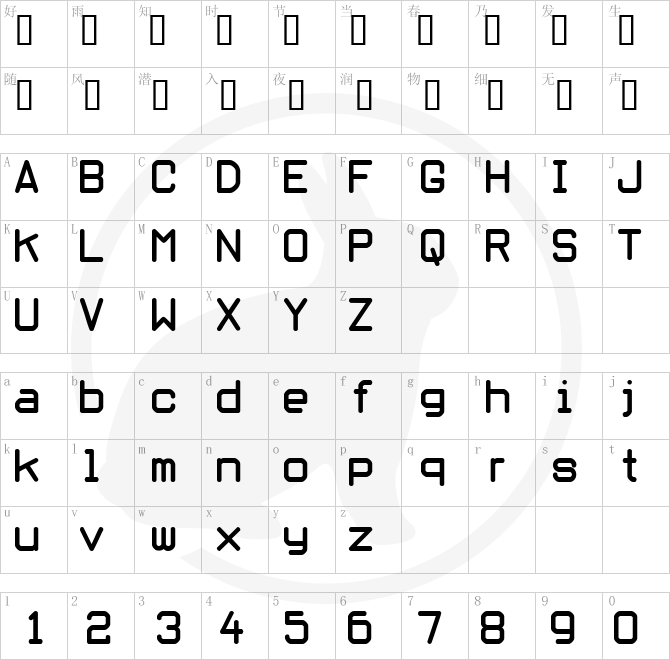
- Font Name:Oblivious font
Oblivious-font.ttf is a very beautiful artistic font, Oblivious-font.ttf is widely used in the design and printing of various books and pictures,Oblivious-font.ttf has a strong visual impact,Oblivious-font.ttf is a commonly used font in newspapers, magazines and books, and is used in posters, e-commerce Poster design, store design, logo design, font design and other fields.Oblivious-font.